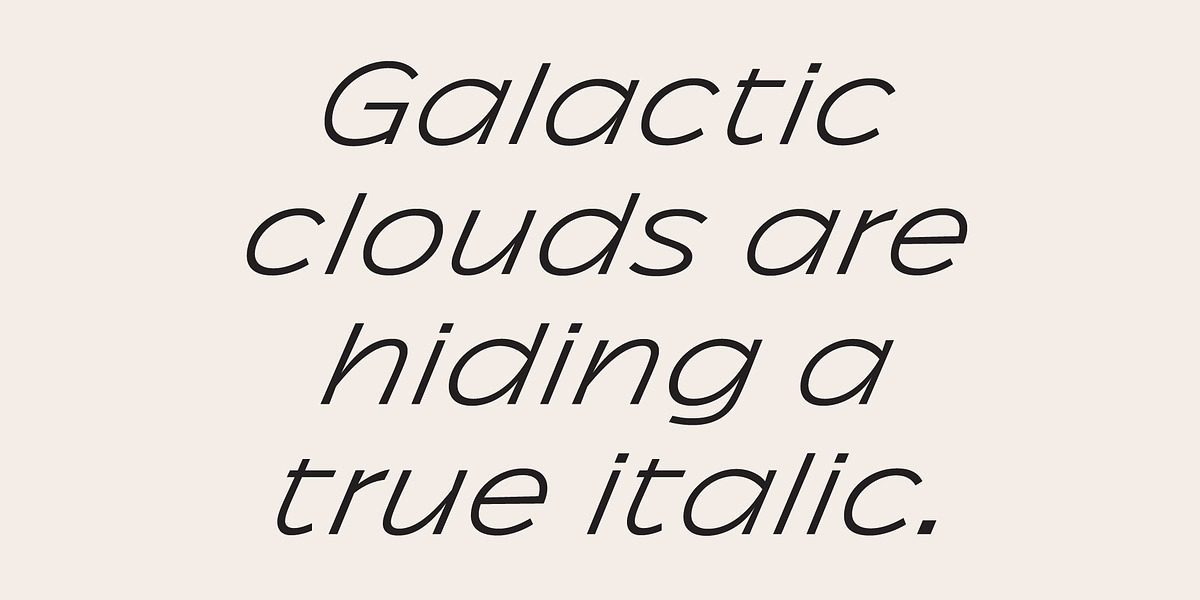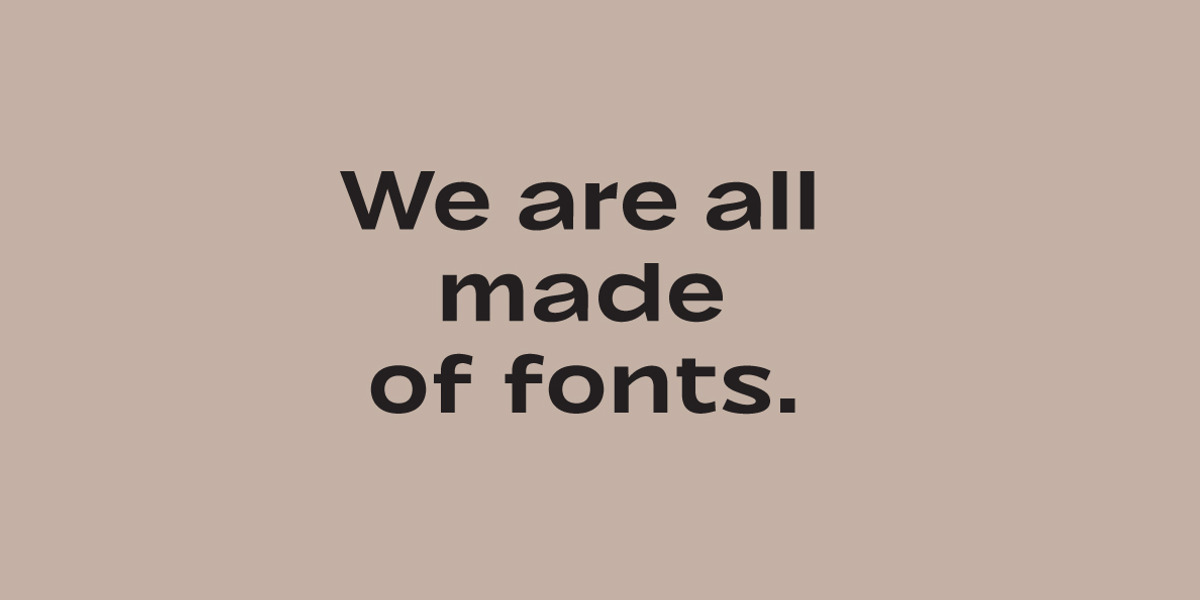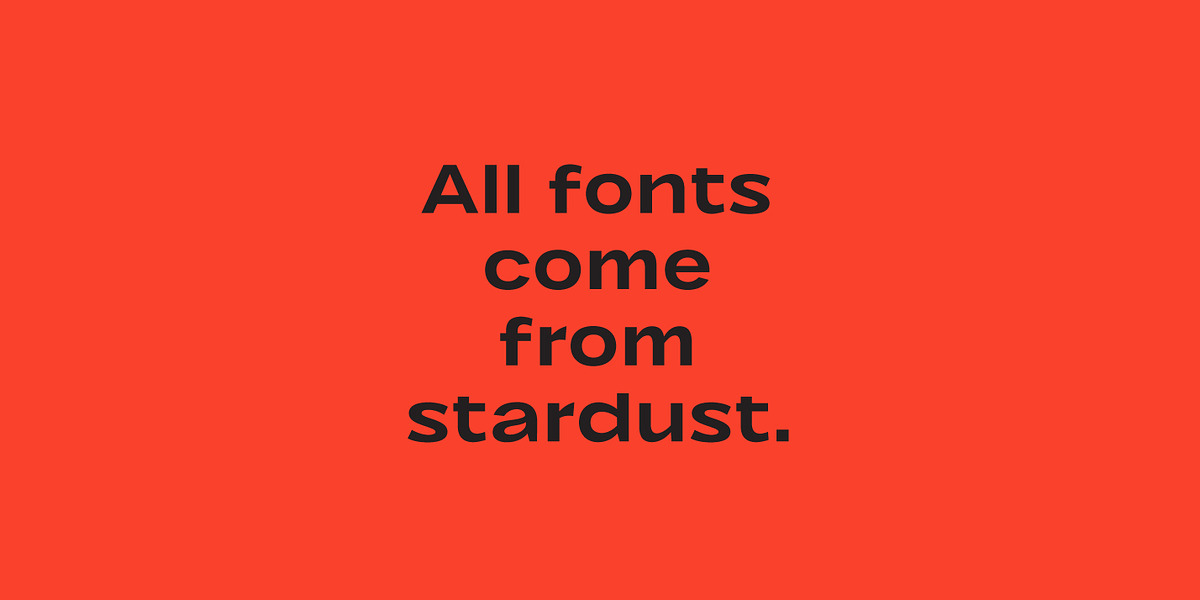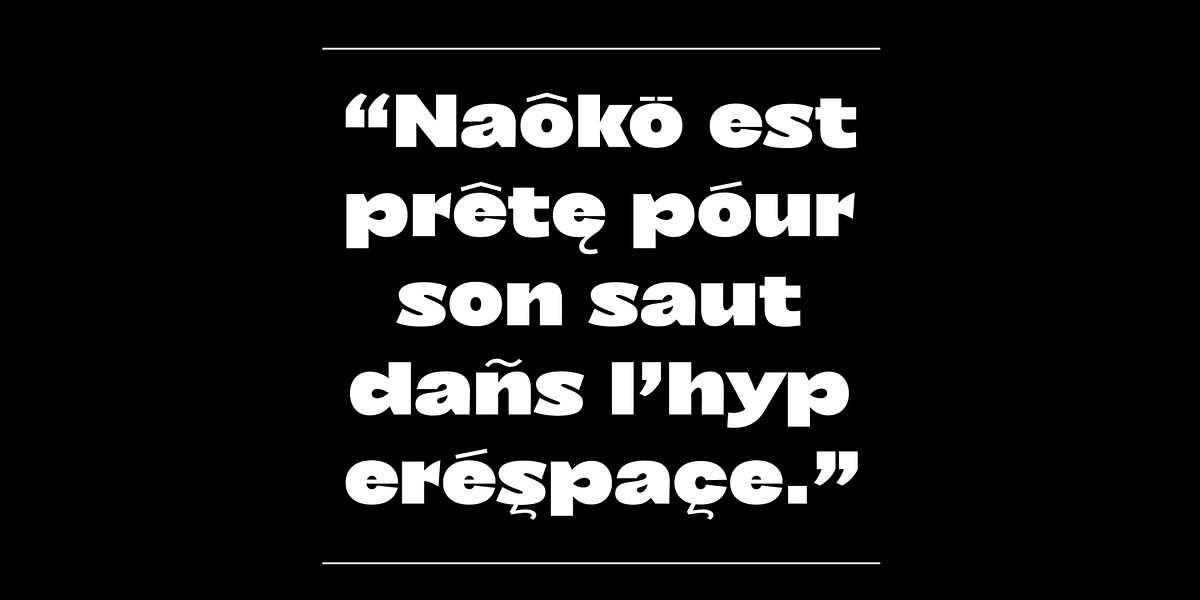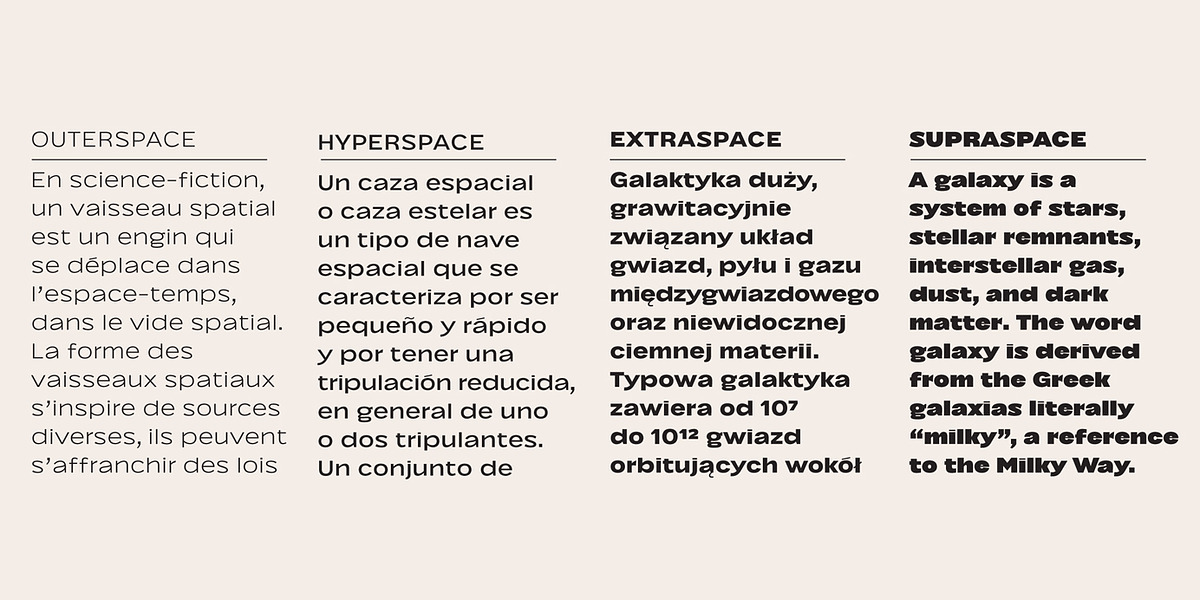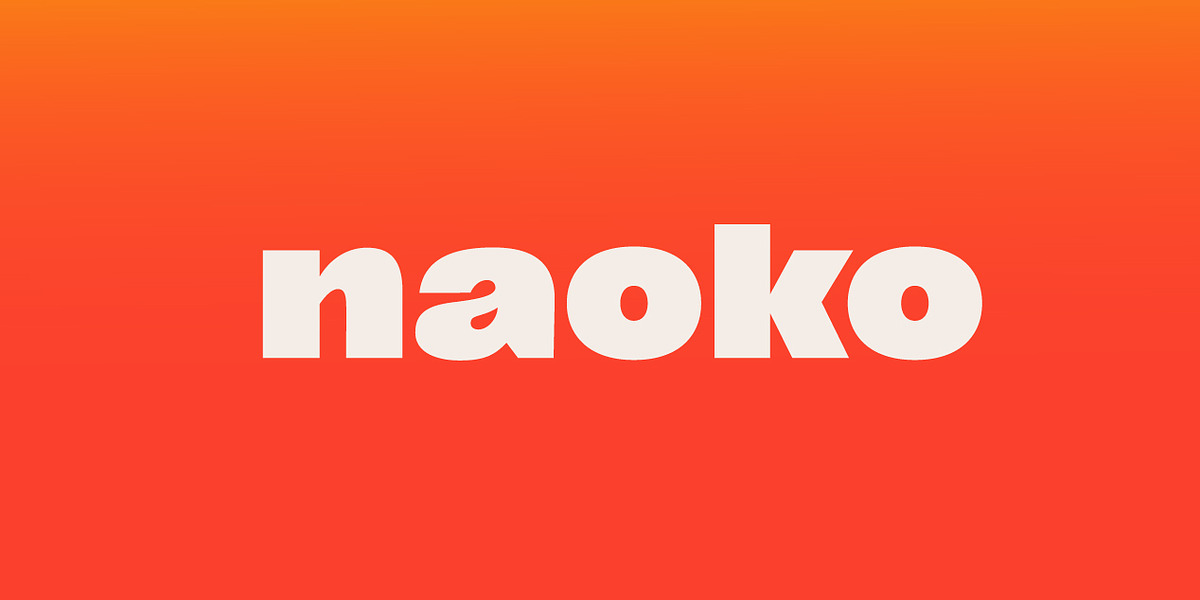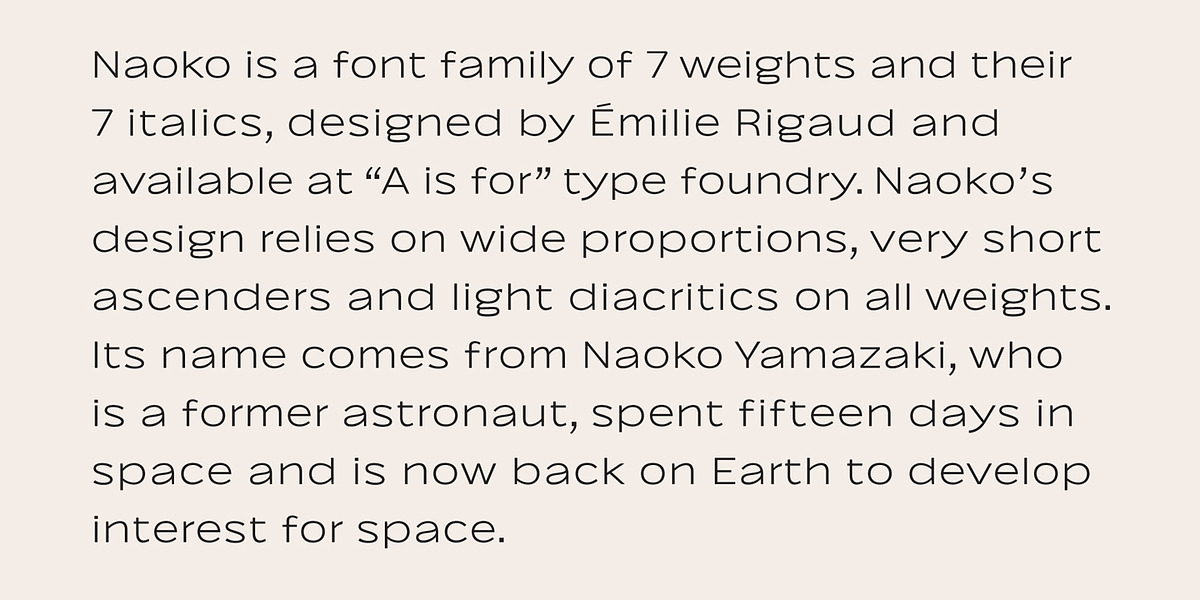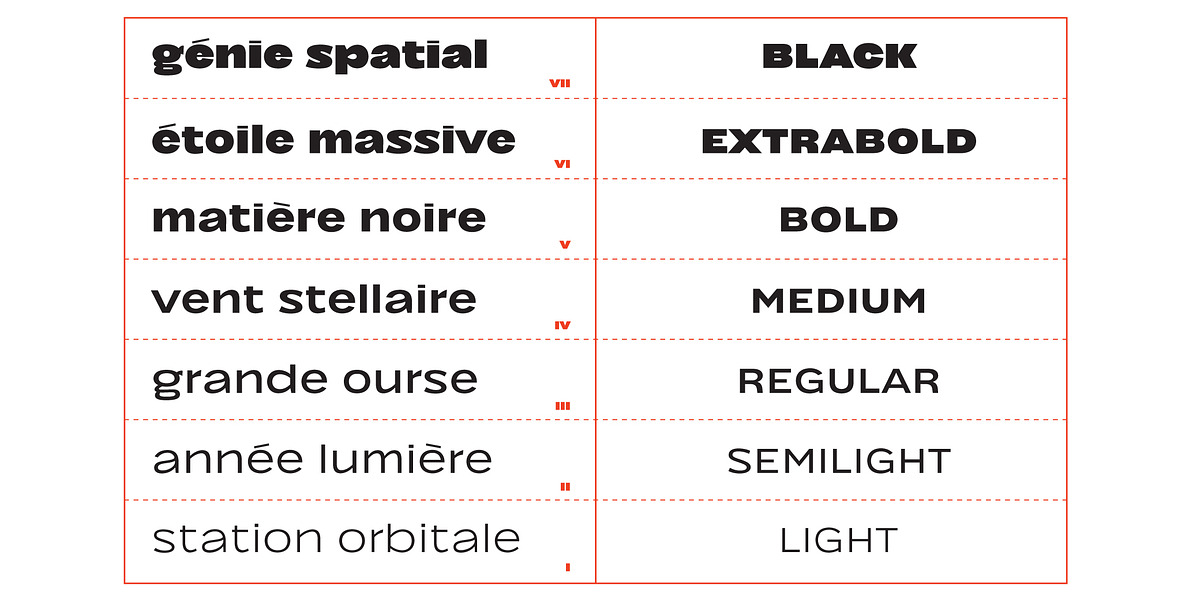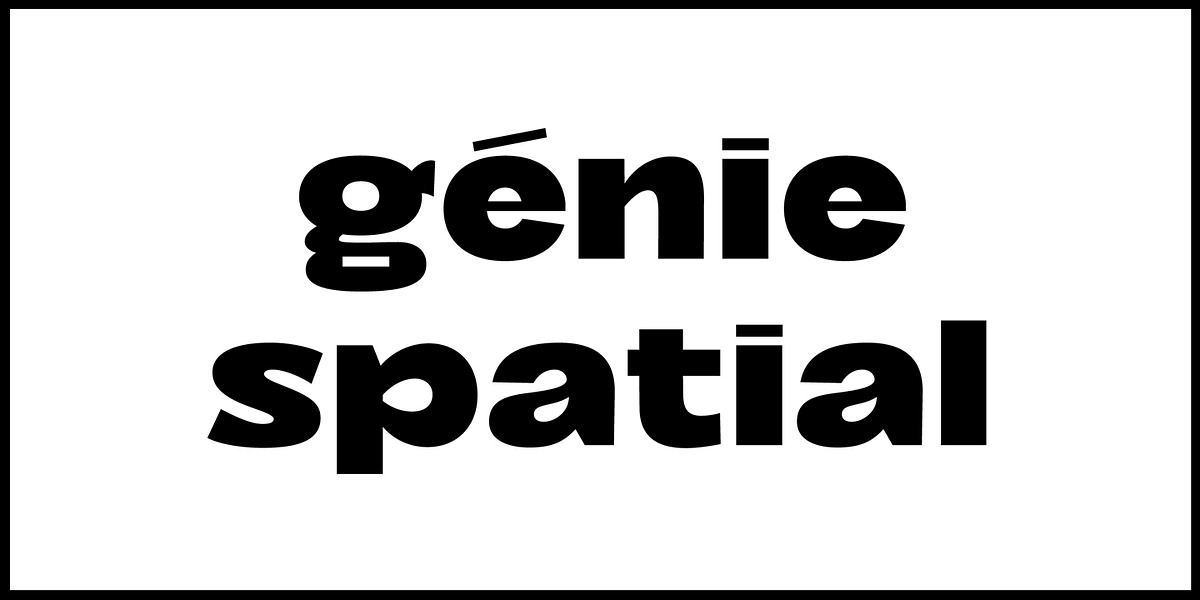
Naoko AA
Naoko is a modern sans serif typeface family characterized by its wide proportions and distinctive design elements. It features very short ascenders and light diacritics across all seven weights. The font also includes a stylistic set of light punctuation and an alternative 'g' glyph. Notably, Naoko incorporates hidden Japanese symbols within its character set, adding a unique cultural touch.